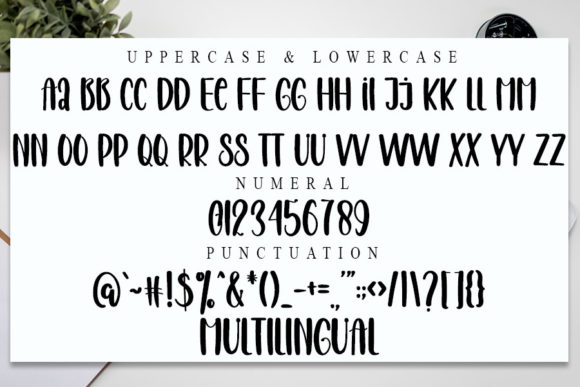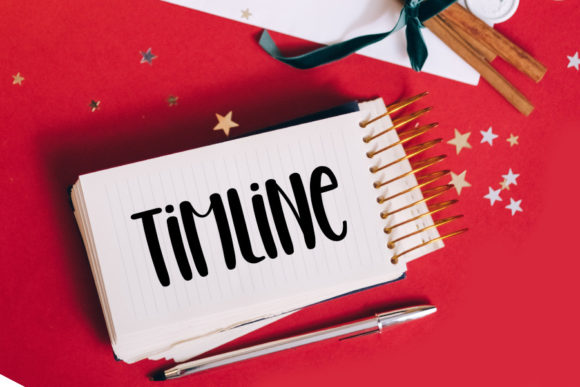
Mousepad Font
db-ku.com - Script & Handwritten -- Mousepad is a stylish handwritten font with a contemporary atmosphere and impeccable form, inspired by timeless classic calligraphy. Not too thin and not too thick, balanced and varied, this font was designed to enhance the beauty of your projects.